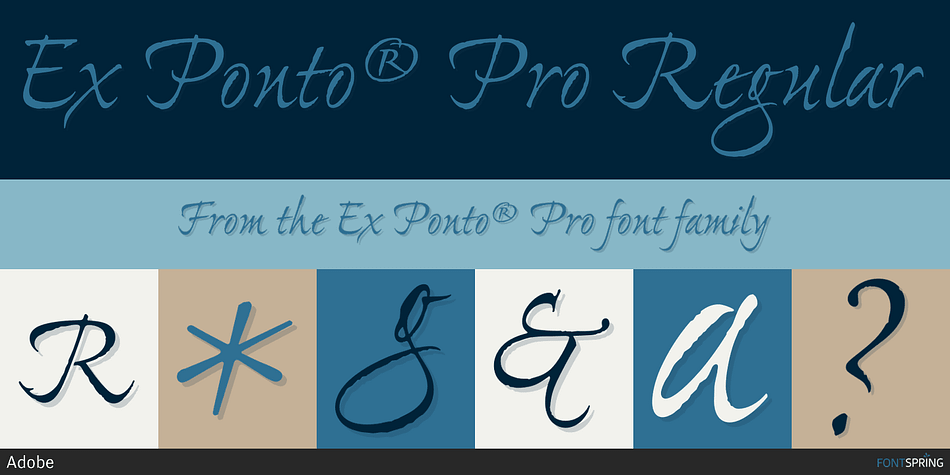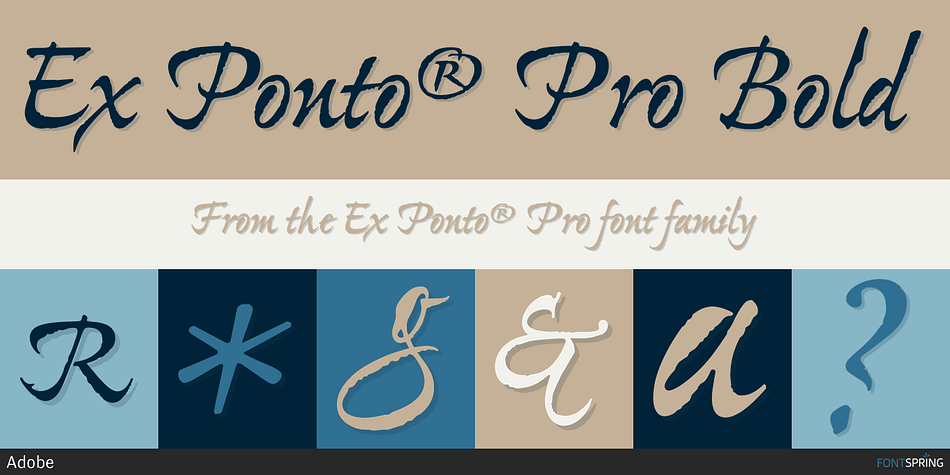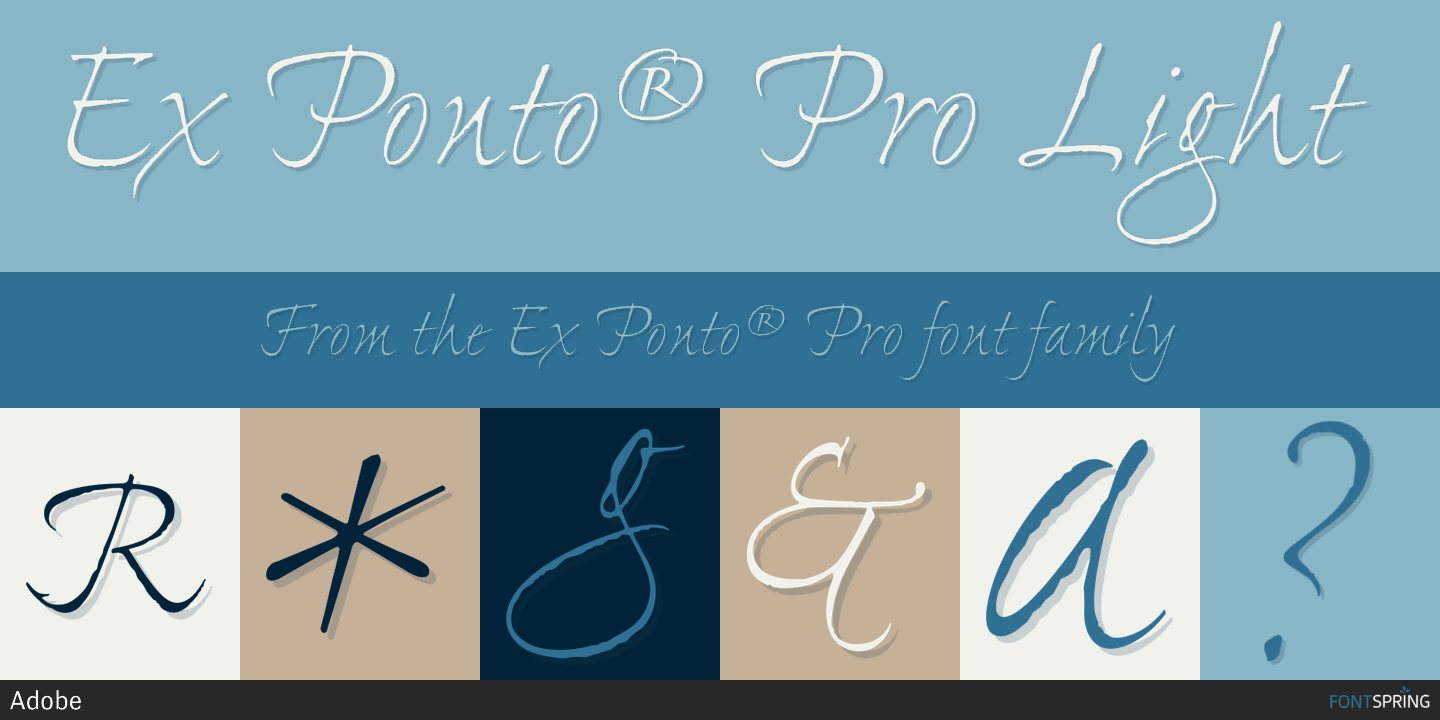
Ex Ponto® Pro is a script font family. This typeface has three styles and was published by Adobe.
Ex Ponto, designed by acclaimed calligrapher, type designer and artist Jovica Veljovic, is a spirited script typeface. Based on the rhythm of Veljovic’s handwriting, Ex Ponto combines the vigor of handwritten letters with the grace of meticulously crafted script typography. Veljovic began by drawing calligraphic characters on rough paper and then carefully modified these ragged-edged letterforms to produce graceful, balanced characters. Ex Ponto sparkles with the nuances of the handwriting from which it originated. Designed primarily for use at display sizes, Ex Ponto also works well in text as small as 12 points. We know you’ll have no trouble imagining any number of projects where the vibrant intensity of Ex Ponto will rivet your readers to the page or poster or package.